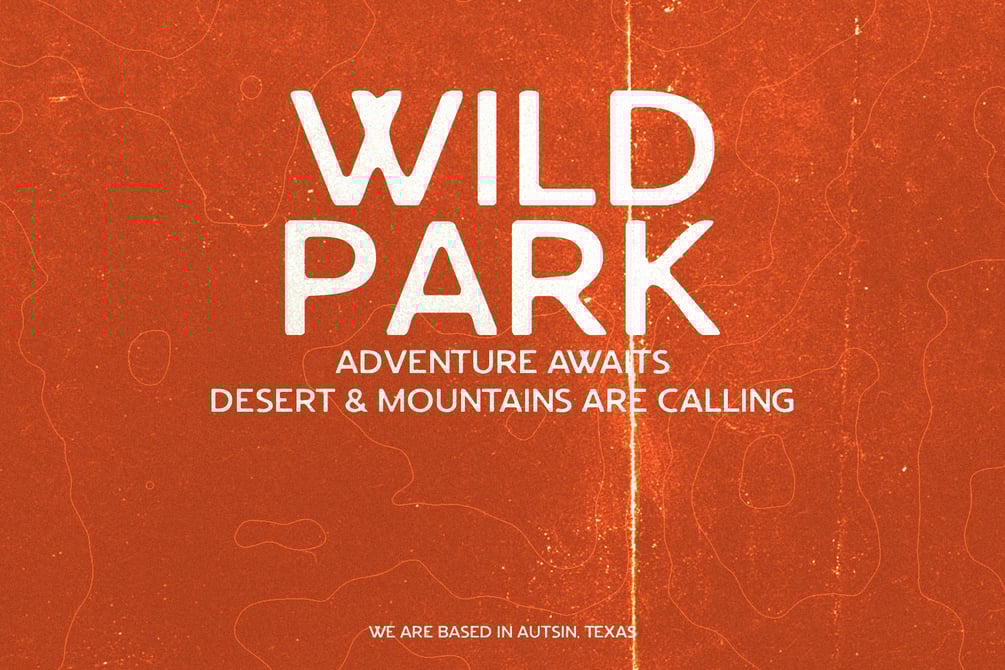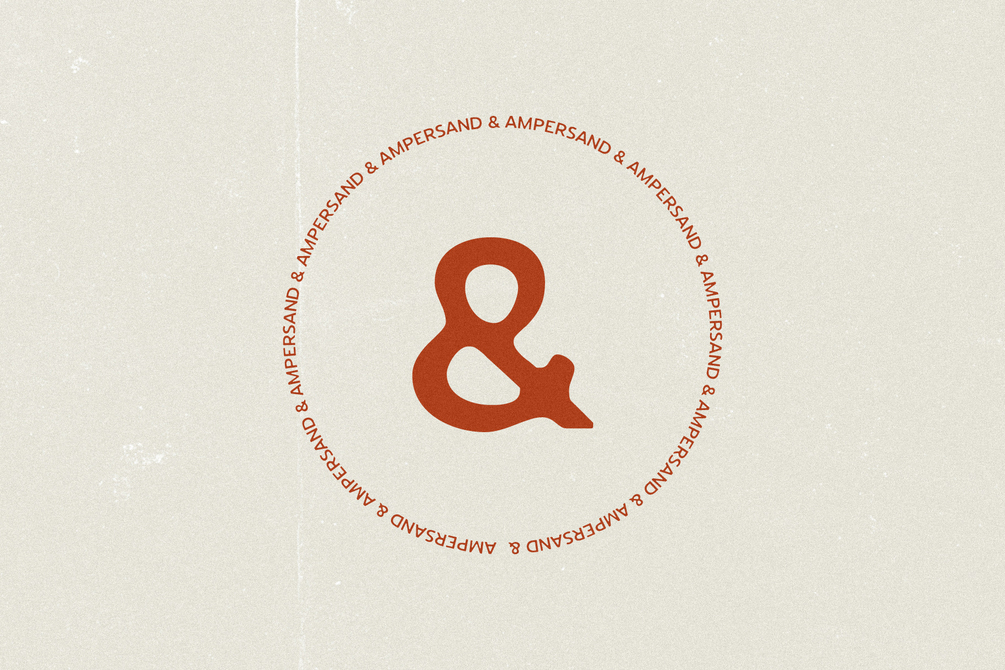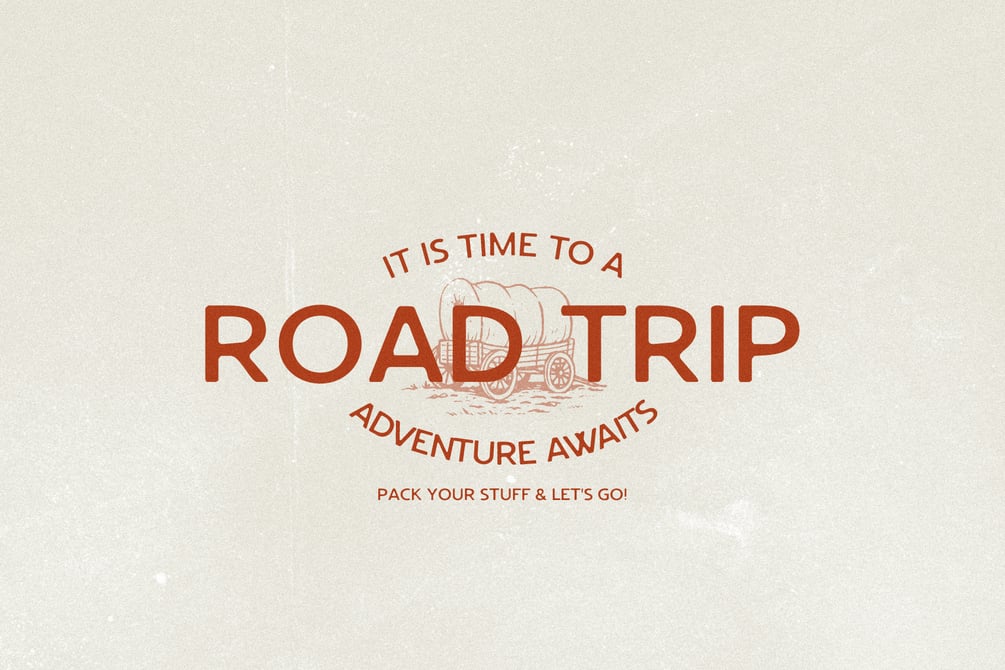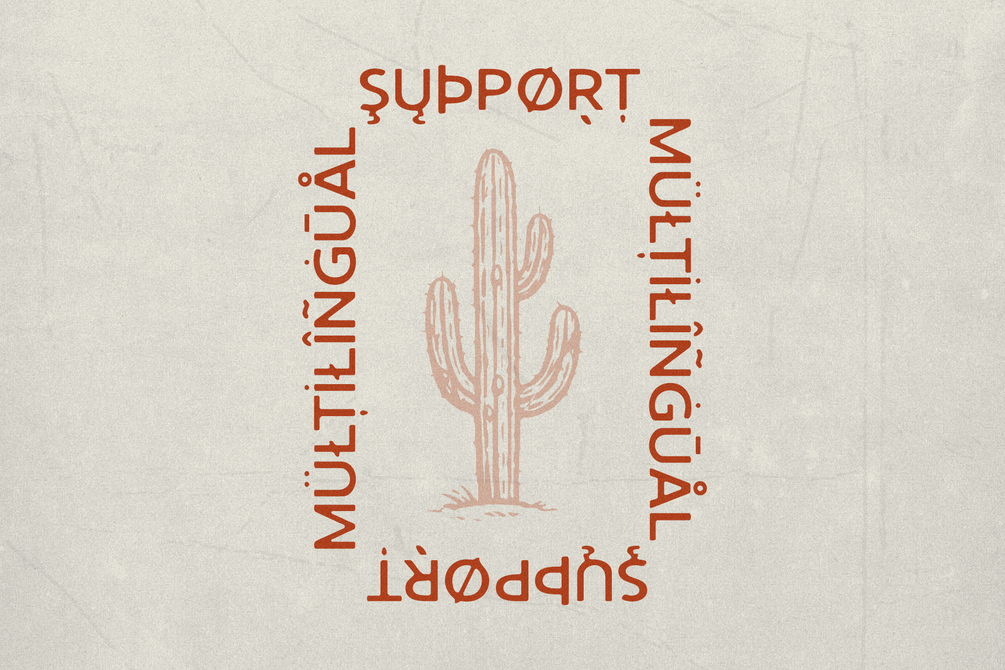
WILDMAP FREE FONT
Reptile Foundry
WILDMAP is a vintage all-caps typeface inspired by classic outdoor maps, heritage trail signage, and old expedition graphics. Built with bold, confident letterforms and subtle retro character, it evokes a sense of exploration, adventure, and timeless craftsmanship. Perfect for logos, posters, apparel, packaging, and outdoor or travel branding, WILDMAP delivers a rugged yet clean aesthetic that feels both nostalgic and versatile - ideal for designs that celebrate discovery, authenticity, and the call of the wild.